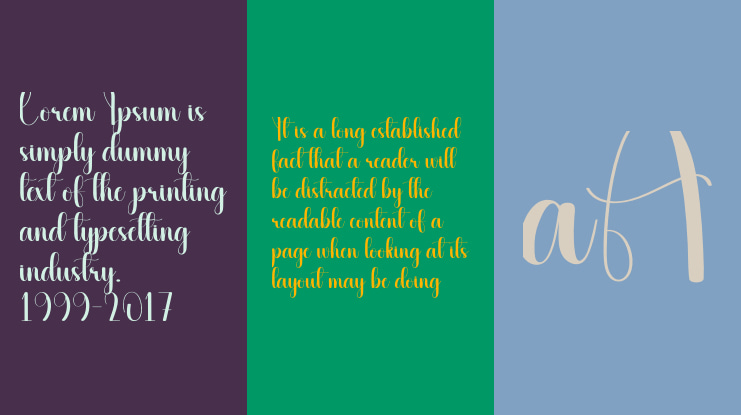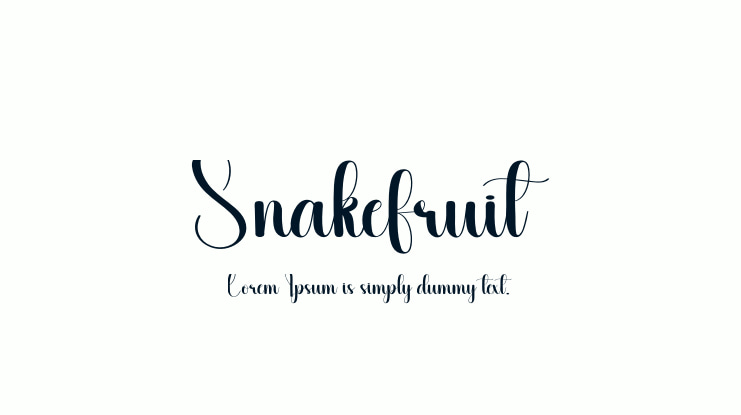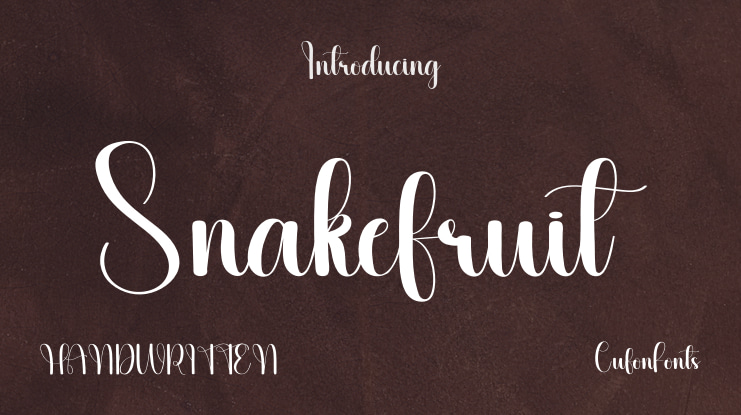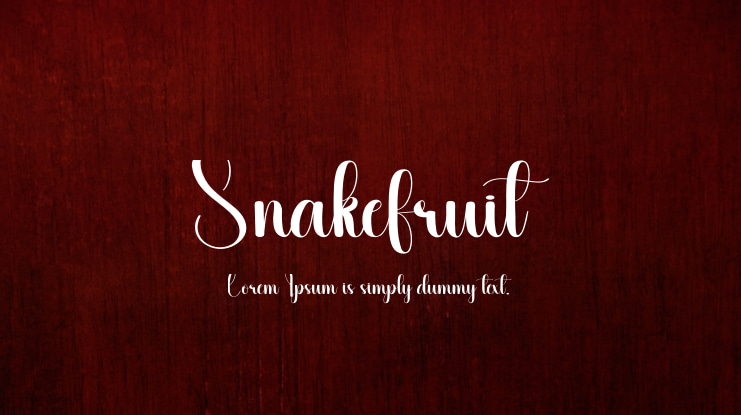
Our latest style letters are ideal for wall displays, wedding invitations, social media post logos, advertisements, product packaging, product designs, labels, photography, watermarks, invitations, stationery, and any project that requires elegant handwriting.